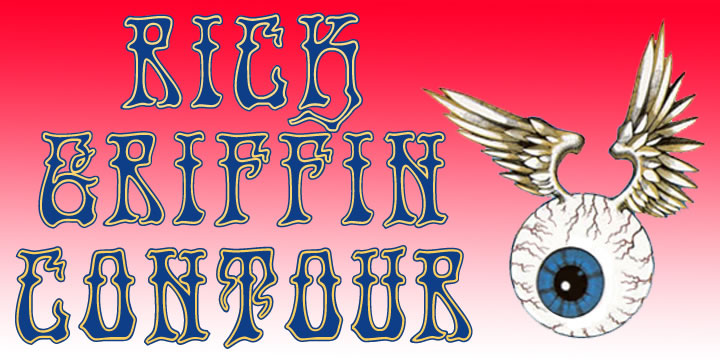
The Rick Griffin Font Free Download is a psychedelic, hand-drawn typeface inspired by the iconic artwork of 1960s counterculture. Perfect for band posters, album covers, festival flyers, skateboard brands, streetwear designs, and underground zines, this font radiates retro rebellion and creative freedom.
What makes this font exciting is its trippy, fluid letterforms and wild energy. It channels the spirit of rock 'n' roll, surf culture, and visual anarchy—ideal for designers looking to make bold, unconventional statements. Every character feels like a piece of visual art.
The Rick Griffin font family includes variations such as Regular, Distorted, Shadowed, and Wavy styles. These versions give designers the flexibility to push boundaries and experiment with layout, motion, and texture.
If you’re aiming for designs that break the rules and leave a lasting impression, Rick Griffin Font Free Download is your go-to weapon. It’s expressive, rebellious, and visually unforgettable—perfect for loud ideas and louder visuals.